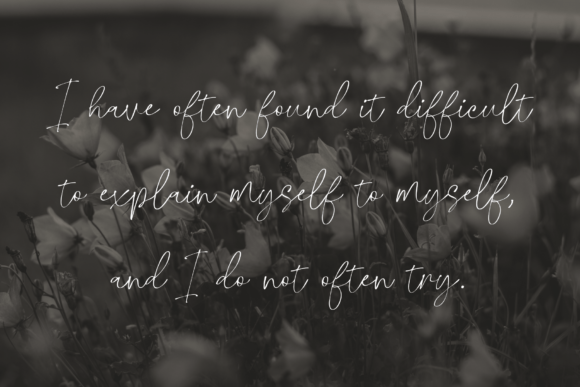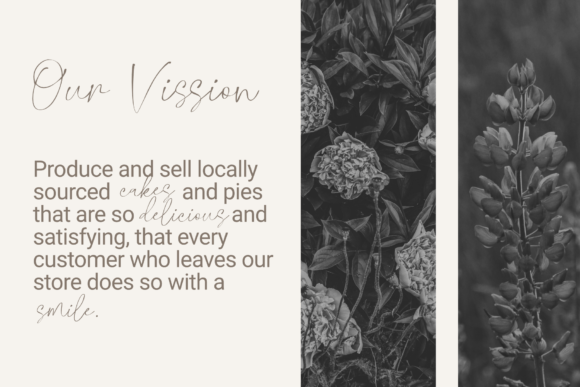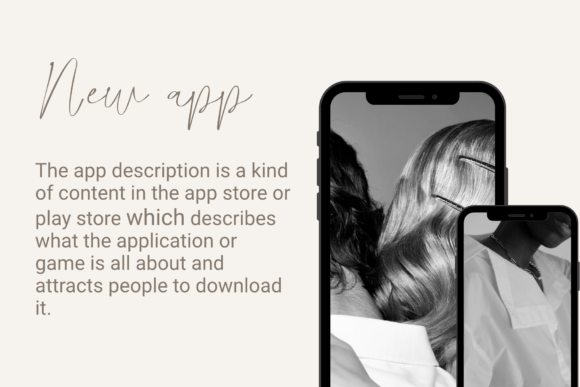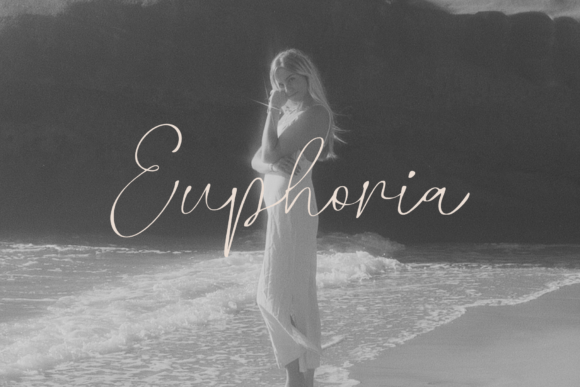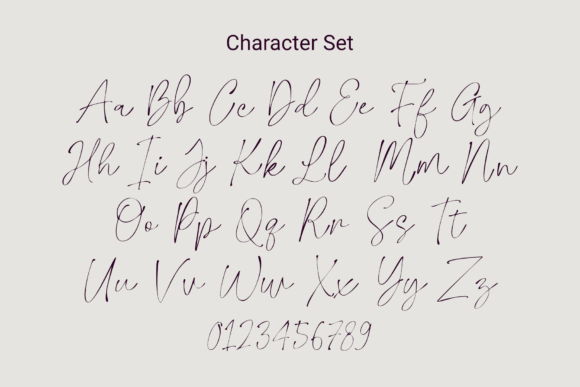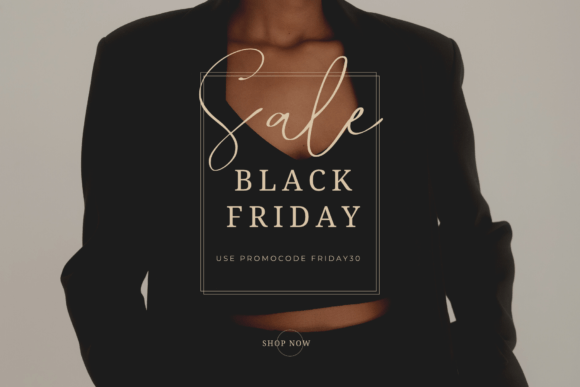
Introducing Glossily Enigmatic Font: Elevate Your Designs with Elegance and Charm
In the world of typography, fonts play a crucial role in conveying the tone and personality of a design. For designers and crafters seeking to add a touch of sophistication and warmth to their projects, Glossily Enigmatic Font is an exceptional choice. This modern and natural handwritten font is designed to bring an elegant vibe, charming and chic impression, making it perfect for a wide range of applications.
What is Glossily Enigmatic Font?
Glossily Enigmatic is a beautifully crafted handwritten font that exudes a sense of refinement and luxury. Its unique characters and flowing lines create a distinctive look that is both modern and timeless. This font is ideal for designers who want to add a personal touch to their work, making it stand out from the crowd.
Key Features of Glossily Enigmatic Font
- Elegant and Charming: Glossily Enigmatic Font boasts an elegant and charming appearance, perfect for designs that require a sophisticated touch.
- Modern and Natural: This font combines modern style with a natural, handwritten feel, making it versatile for various design applications.
- Warm and Cozy: The font’s warm and cozy style is ideal for creating inviting and engaging designs that resonate with audiences.
- Highly Versatile: Glossily Enigmatic Font can be used for a wide range of projects, including wedding designs, stationery, logos, social media quotes, branding identity, and more.
Glossily Enigmatic Font is incredibly versatile, making it suitable for numerous design projects. Here are some of the ideal applications for this beautiful font:
- Wedding Designs: Add a touch of elegance to wedding invitations, programs, and decorations with Glossily Enigmatic Font.
- Stationery: Create charming and sophisticated stationery, including greeting cards, thank-you cards, and letterheads.
- Logos and Branding: Use Glossily Enigmatic Font to develop unique and memorable logos and branding materials that reflect your brand’s personality.
- Social Media Quotes: Elevate your social media presence with stylish and engaging quotes that showcase your brand’s voice.
- Branding Identity: Establish a consistent brand identity across various platforms with Glossily Enigmatic Font’s distinctive style.
Why Choose Glossily Enigmatic Font?
With so many fonts available, why should you choose Glossily Enigmatic Font for your designs? Here are a few compelling reasons:
- Unique and Exclusive: Glossily Enigmatic Font offers a distinctive style that sets your designs apart from others.
- Easy to Read: The font’s clear and flowing lines ensure that your text is easy to read, making it perfect for body text and headings.
- Customizable: Glossily Enigmatic Font can be easily customized to fit your design needs, allowing you to adjust the size, color, and style to suit your project.
Glossily Enigmatic Font is an exceptional choice for designers and crafters seeking to add a touch of elegance and charm to their projects. With its modern and natural handwritten style, warm and cozy feel, and high versatility, this font is perfect for a wide range of design applications. Whether you’re working on wedding designs, stationery, logos, social media quotes, or branding identity, Glossily Enigmatic Font is sure to elevate your designs and make them stand out.